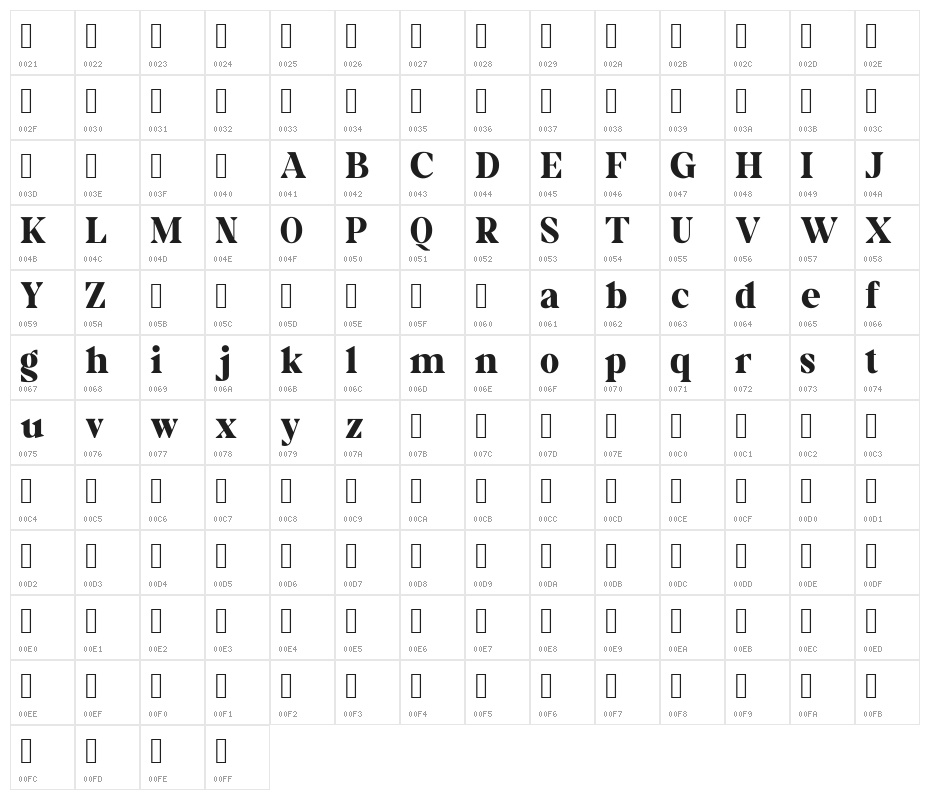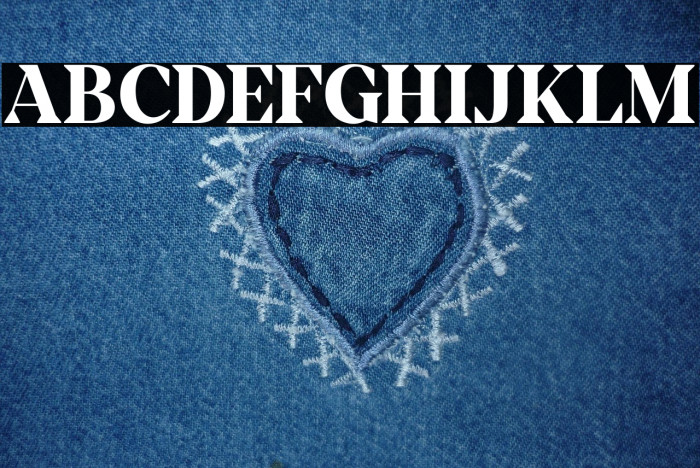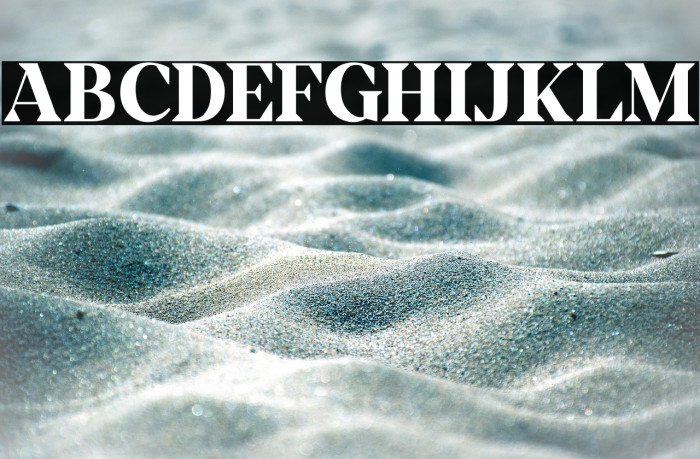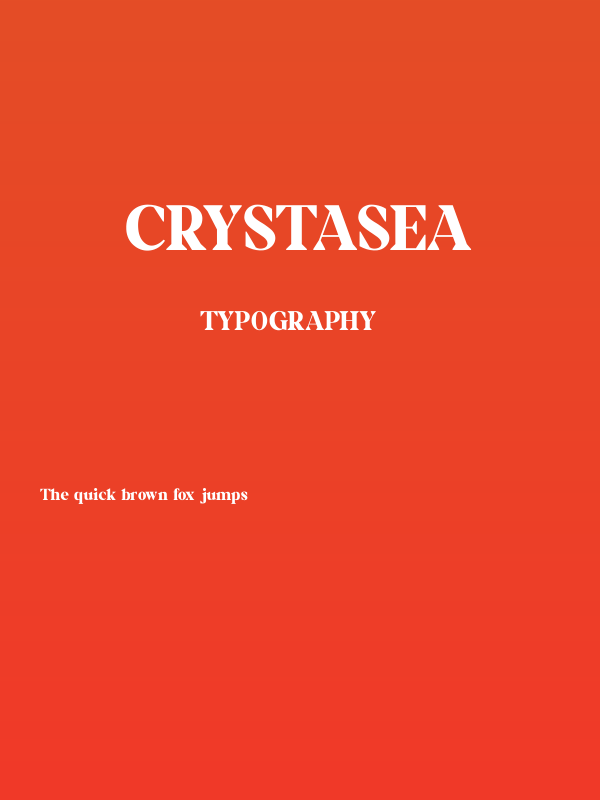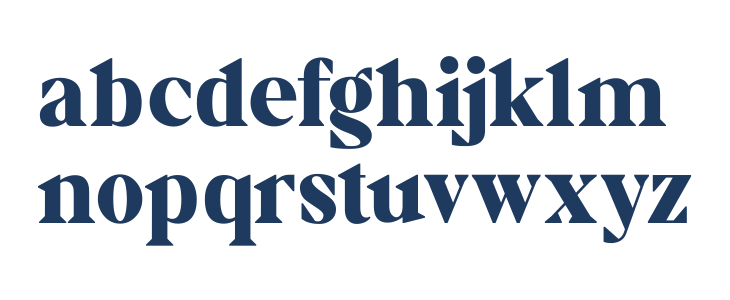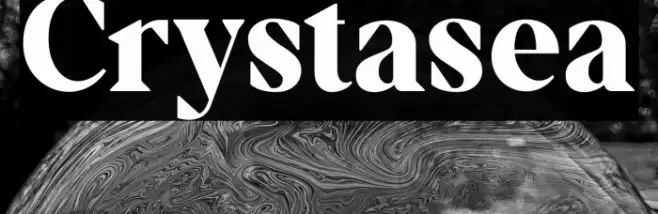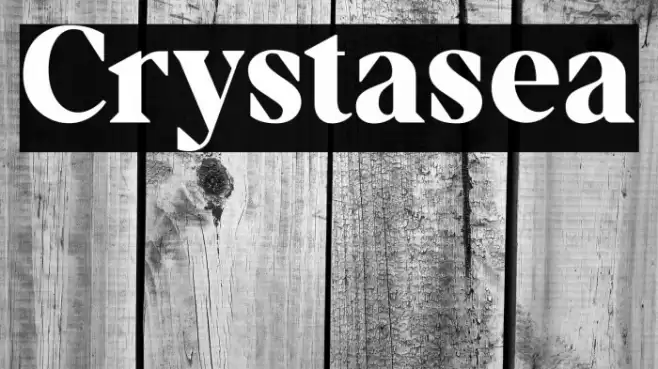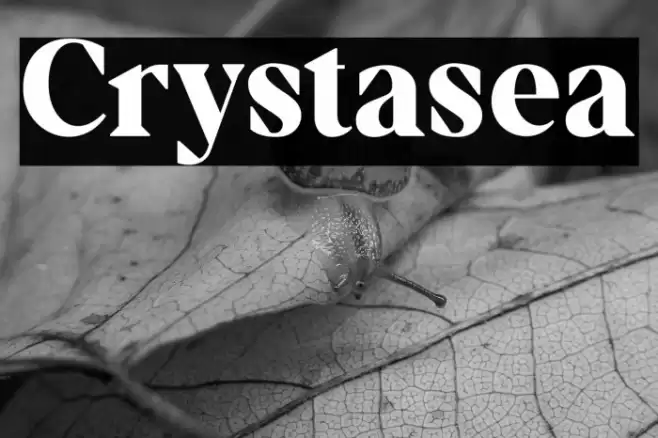
Crystasea Font
Crystasea Description
This font features a bold and commanding serif style, characterized by thick strokes and prominent serifs that give it a strong, authoritative presence. The uppercase letters are particularly striking, with a classic elegance that is both timeless and versatile. The lowercase letters maintain the same boldness, ensuring consistency across different text applications. The numbers and special characters are designed to match the overall aesthetic, providing a cohesive look. This font is ideal for projects that require a touch of sophistication and impact.
| Proposed Projects | Ideal for book covers, headlines, branding materials, and formal invitations. |